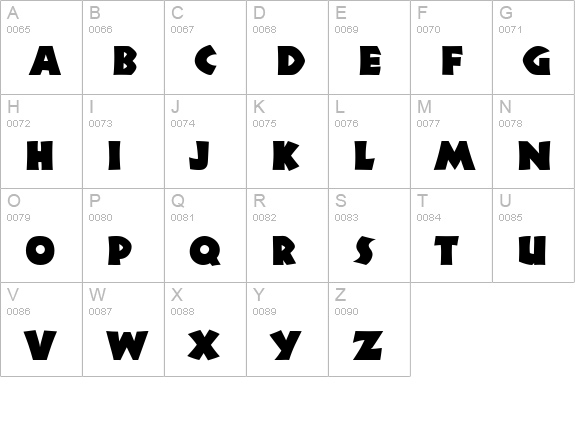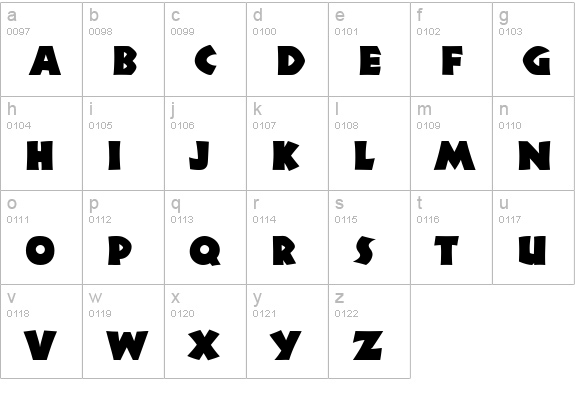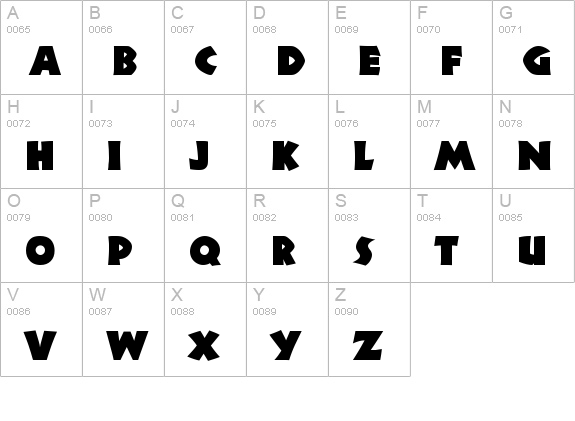
Neuland font is a bold and striking typeface that exudes strength and modernity. Its distinctive design features sharp angles and clean lines, making it perfect for creating eye-catching headlines and impactful designs. The unique character of Neuland font sets it apart from other typefaces, giving your projects a fresh and contemporary look. The best part about Neuland font is that it is completely free to download at FontsMarket.com. This means you can easily access this versatile typeface without any cost, making it a valuable addition to your font collection. Whether you're designing posters, banners, or digital content, Neuland font will elevate your creations with its dynamic style and visual appeal. Download Neuland font today and unleash your creativity with this exceptional typeface.